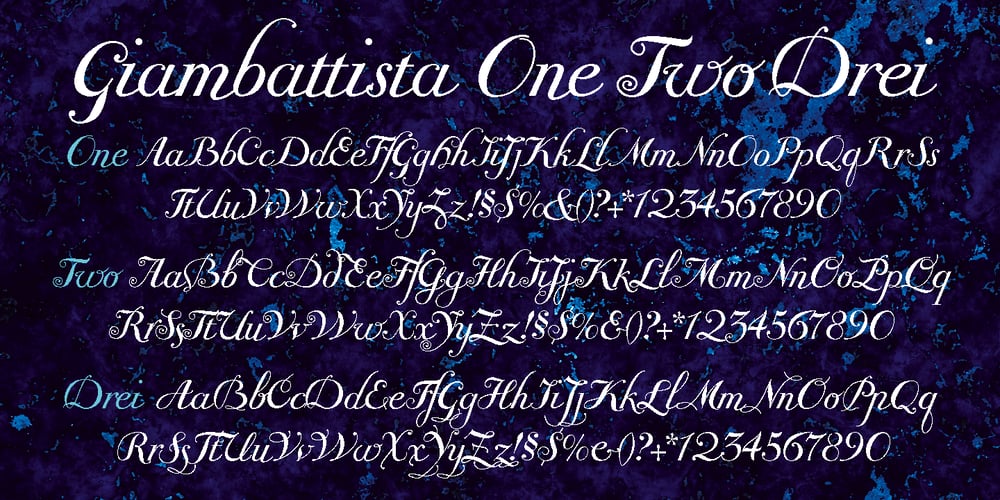
Giambattista
Giambattista font
Giambattista Font Family was designed by Gert Wiescher and published by Wiescher Design. Giambattista contains 3 styles and family package options. Giambattista is a long-time project of mine finally come to an end. After redesigning all of Giambattista Bodoni’s work and then some additional cuts I started a long time ago with this Non-Bodoni Bodoni. The idea came to me while redesigning the original Chancellerosa (chancery). I thought Bodoni just didn’t have the right approach to a chancery, this was just not his cup of tea! Maybe that is why he never used the Chancellerosa very much for his own printshop in Parma. So I thought someone has to design a script, that looks like Bodoni could have designed it but is more lively than his. Over the years I have been working on and off on the face and it turned out to become three typefaces which can be freely mixed. Here is my modern version of a script in the style of Giambattista, meant as an hommage, I called it Giambattista. Your modern scribe Gert Wiescher